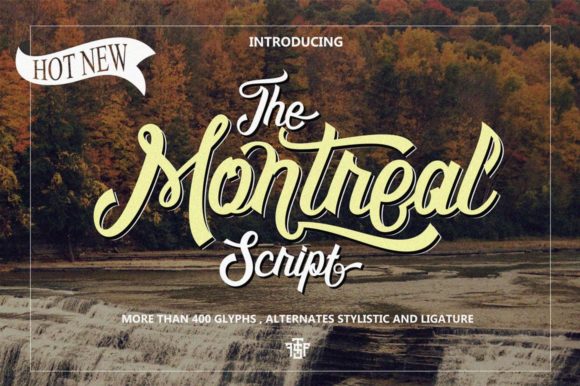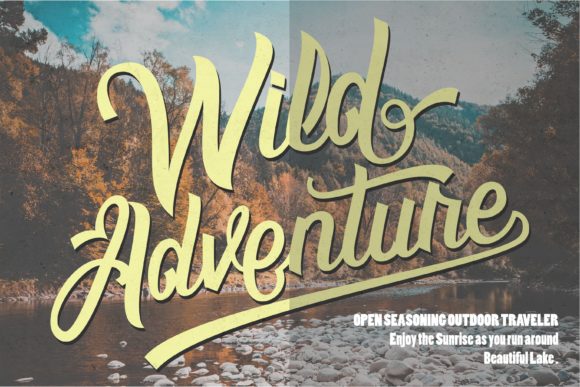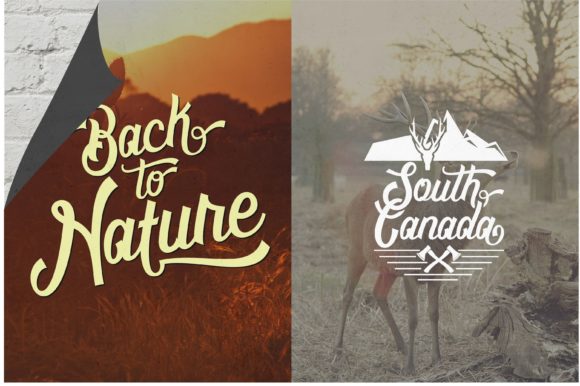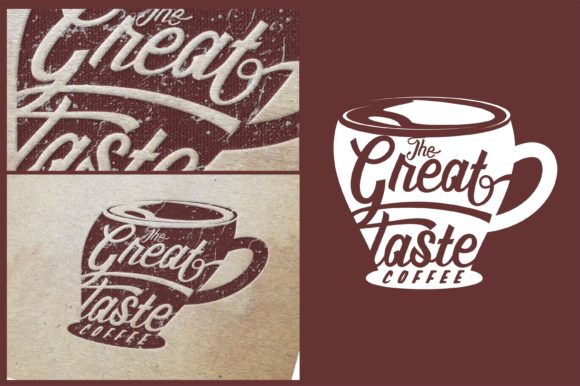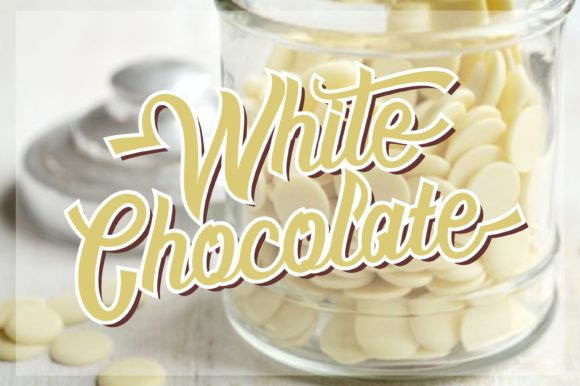
HomeScript FontsMontreal Script Font Script Fonts Montreal Script Font FacebookXPinterestWhatsApp Montreal Script Font Poster 2 Montreal Script Font Poster 3 Montreal Script Font Poster 4 Montreal Script Font Poster 5 About Montreal Script Font Montreal is a nostalgic and sophisticated script with a cool vibe. Get inspired by its unique charm! DOWNLOAD ON CREATIVE FABRICAThis font is sold and delivered by Creative Fabrica. Font Canyon may earn a commission if you buy through this link. People also explored Mr. Duff Font Astonish Love Homework Font Bagus Stanlley Font Labonn Font Glowing Font Gora – Regular & Bold Font Simple Write Font Magnolia Rose Floral Monogram Font 284 0 TagsMontreal Script Font Previous articleAlpen Snow FontNext articleTasty Grill Font LEAVE A REPLY Cancel reply Comment: Please enter your comment! Name:* Please enter your name here Email:* You have entered an incorrect email address! Please enter your email address here Website: Save my name, email, and website in this browser for the next time I comment. Personal Use Free Pouline Personal Use Free Read more about this font December Christmas Personal Use Free Read more about this font Trio Personal Use Free Read more about this font Frozdotre Personal Use Free Read more about this font BLOG Free vs Paid Fonts: Why Investing in Premium Fonts Is Worth It Free vs Paid Fonts: Why Premium Fonts Are Worth It in 2025 The debate of free vs paid fonts continues in the design world. While... Best Fonts for T-Shirt Design – Top 2025 Picks Top 10 Handwritten Fonts That Elevate Your Designs Best Fonts for YouTube Videos: Make Your Thumbnails Stand Out